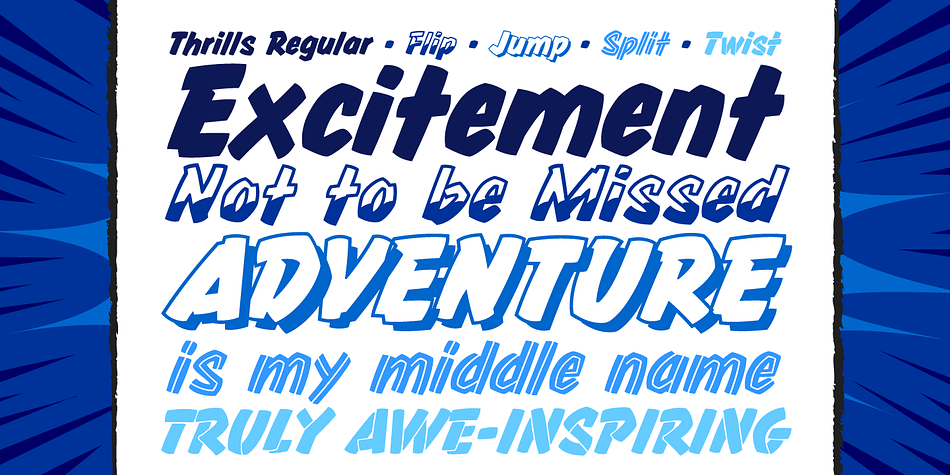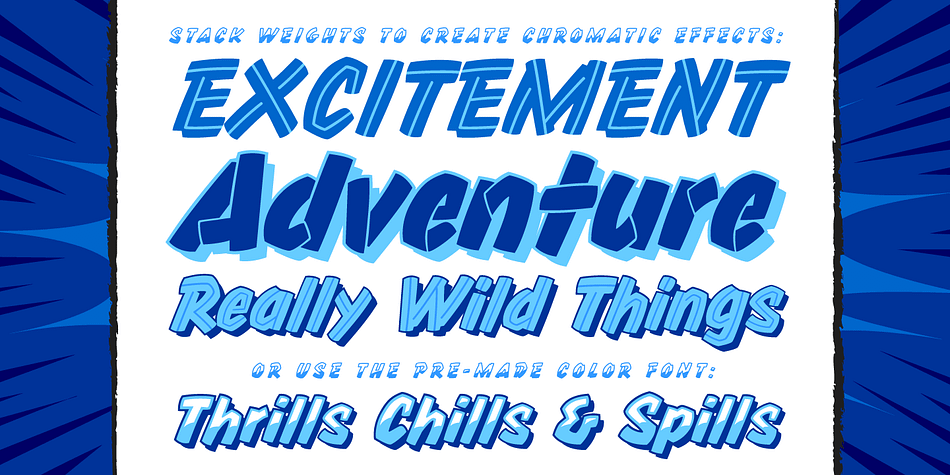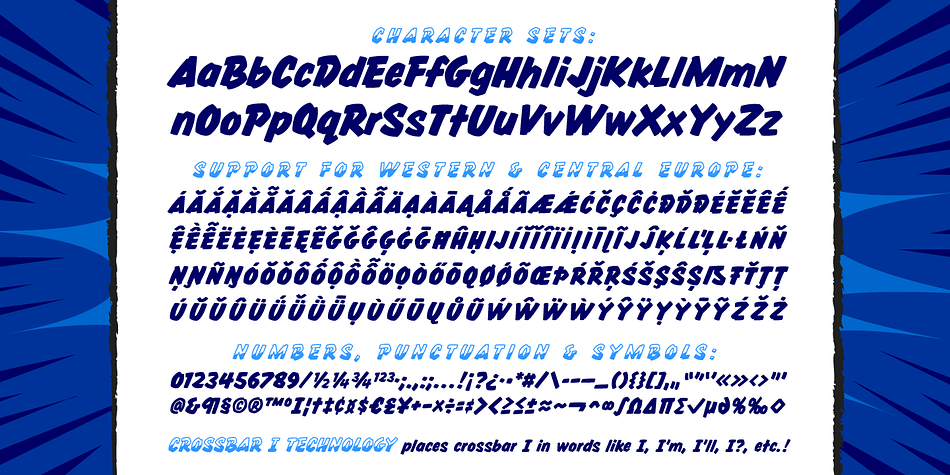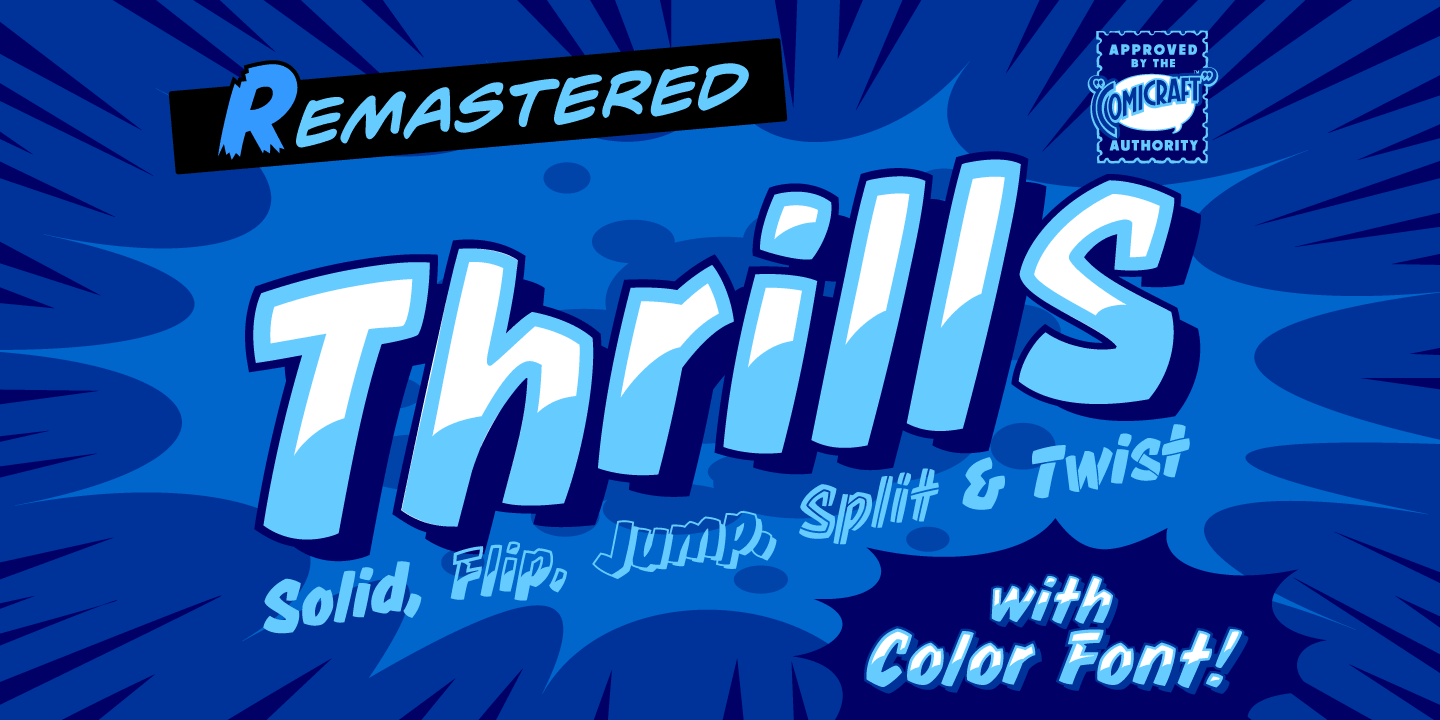
Thrills is a comic font family. This typeface has five styles and was published by Comicraft.
Thrills! It’s urgent, it’s compelling, it’s immediate gratification and so much more than a Thrill-a-minute because it’s now available in five weights! So Jump, Twist, Flip and Split for this adrenalin-packed family of fonts that will give you a rush of excitement every time you punch in as much as a hyphen!